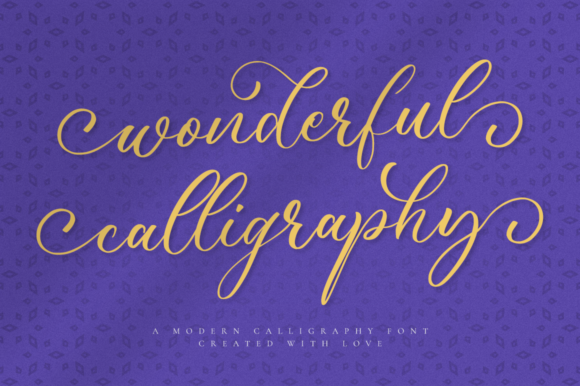
Welcome to the realm of eloquence and grace, where words dance and emotions flow with the stroke of a pen – the Wonderful Calligraphy Font. As the name suggests, this is no ordinary font; it's an exquisite masterpiece that will transform your digital creations into captivating works of art.
Crafted with meticulous care and attention to detail, the Wonderful Calligraphy Font is a script font that embodies beauty and elegance, and the spirit of creativity. It's the perfect companion for those who seek to add a touch of sophistication and charm to their designs. Whether you're a seasoned designer or just starting out, let this font guide you to new heights of artistic expression.
Step into a world where letters dance and words come alive, where your designs are not just seen but felt. The Wonderful Calligraphy Font captures the essence of flowing ink, creating a visual symphony that reflects the passion and artistry within you.
With its sweeping strokes and elegant curves, this font evokes a sense of timeless elegance and sophistication. It seamlessly blends the classic beauty of calligraphy with the modern appeal of digital design, making it a versatile choice for any project that demands attention.
Whether you're designing logos, invitations, social media posts, or anything in between, the Wonderful Calligraphy Font will add a touch of magic that sets your work apart. It's a symphony of beauty and functionality, a tool that amplifies your creativity and elevates your designs to new realms of enchantment.
So, embrace the artistry of the Wonderful Calligraphy Font. Let your imagination soar as you craft designs that speak volumes, designs that exude elegance and capture hearts. Unleash your creativity and let this font be your muse, transforming your digital creations into masterpieces that resonate with beauty, emotion, and timeless grace.